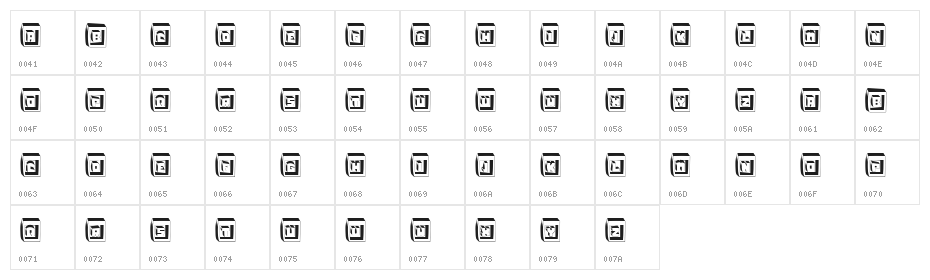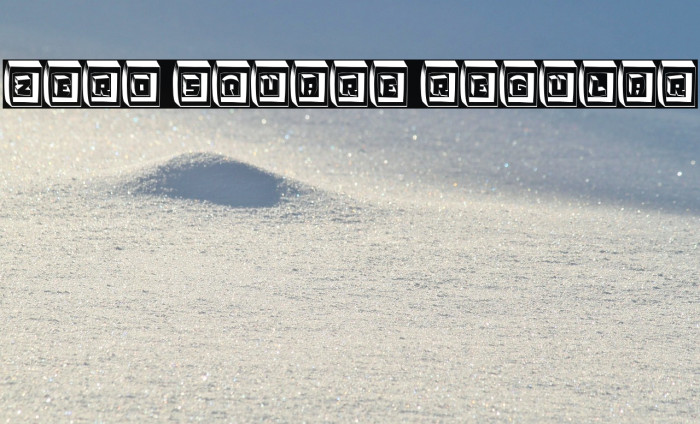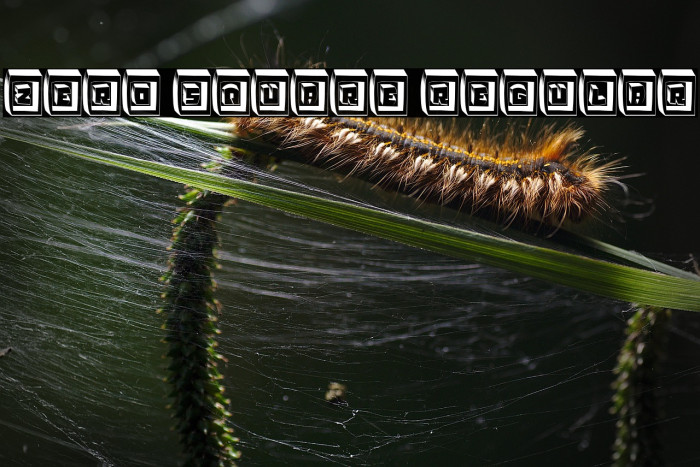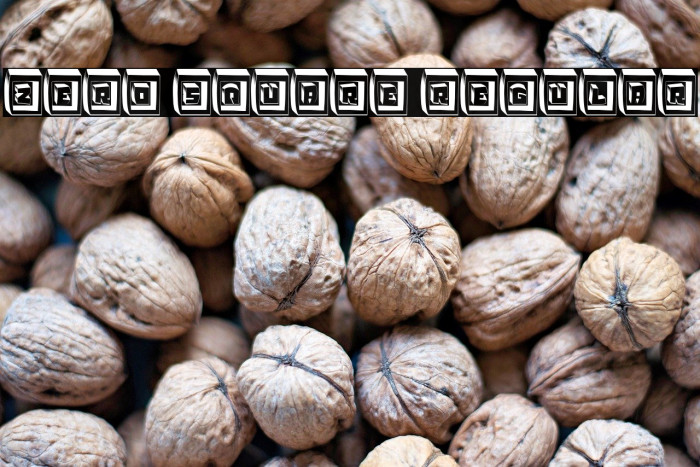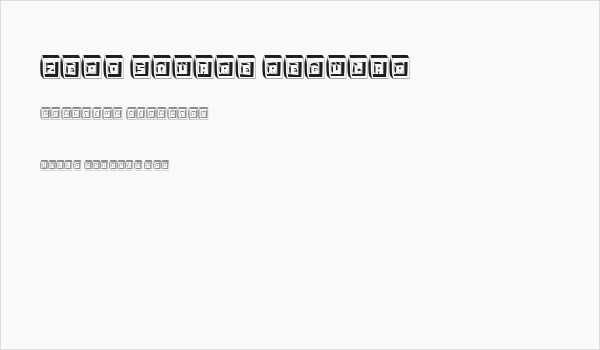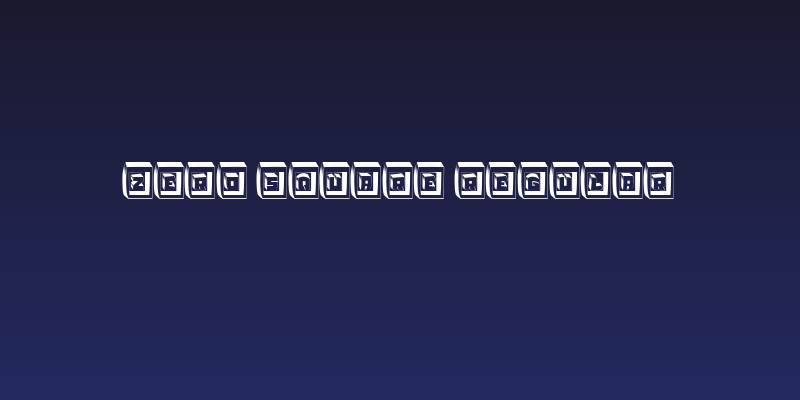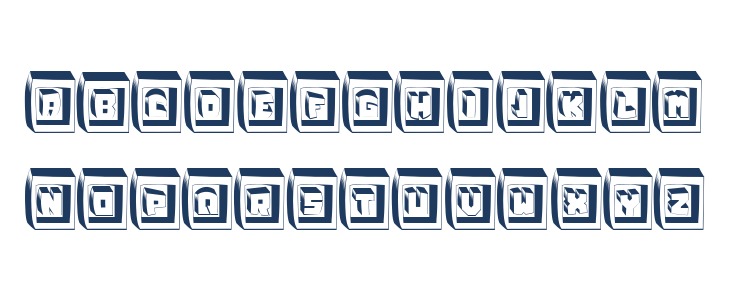
Zero Square Regular Font
Zero Square Regular Description
This font features a bold, three-dimensional design with each character enclosed in a square, giving it a distinctive and modern appearance. The letters are blocky and geometric, with a strong emphasis on straight lines and sharp angles. The 3D effect is achieved through shading, which adds depth and a sense of movement to the characters. This unique style makes it stand out, making it suitable for eye-catching designs. The font is consistent in its use of space, with each character fitting neatly within its square, ensuring uniformity across the text.